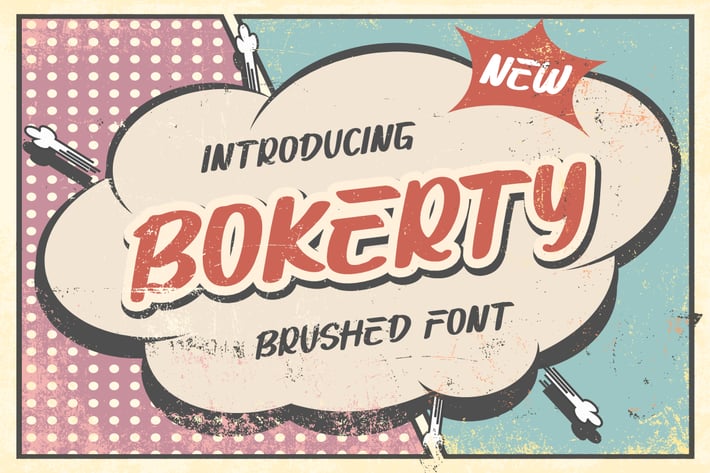
Bokerty - New Brushed Font
Bokerty a New Brushed Font, This font is made with a high premium quality level which you can use as flyers, quotes, posters, banners, packaging, merchandise, logotypes and much more.